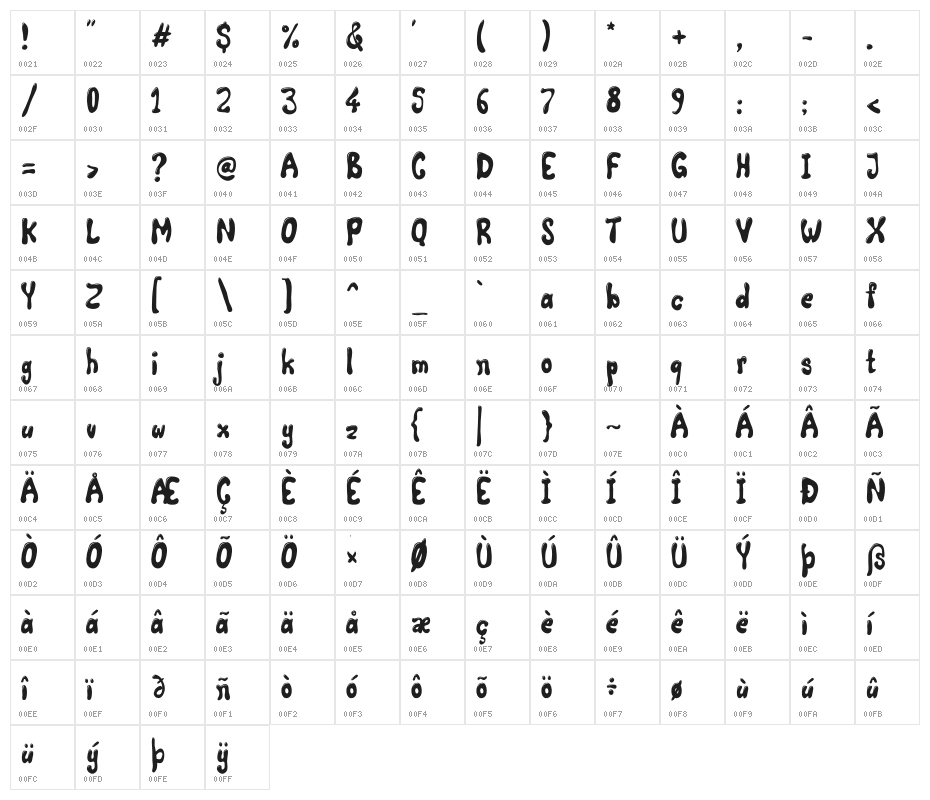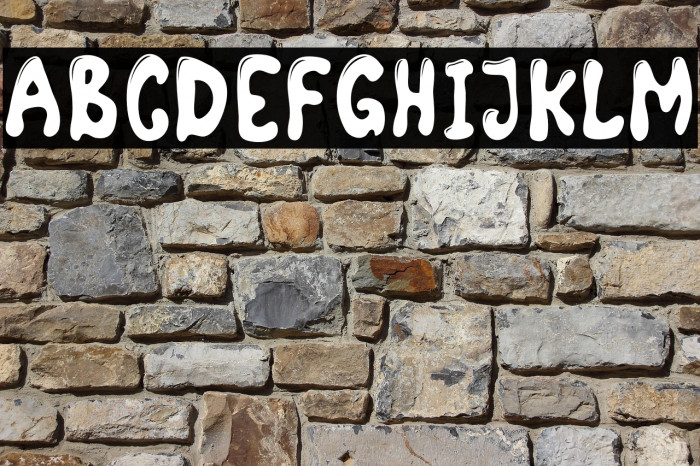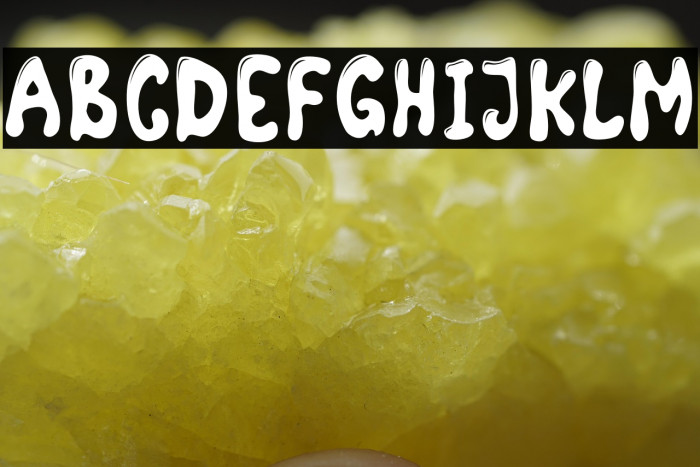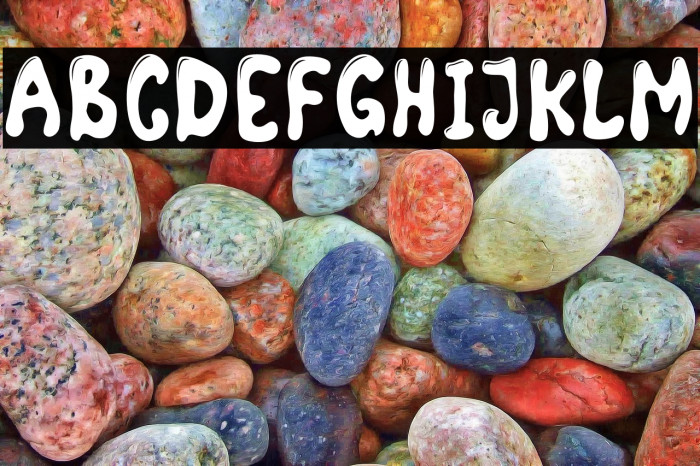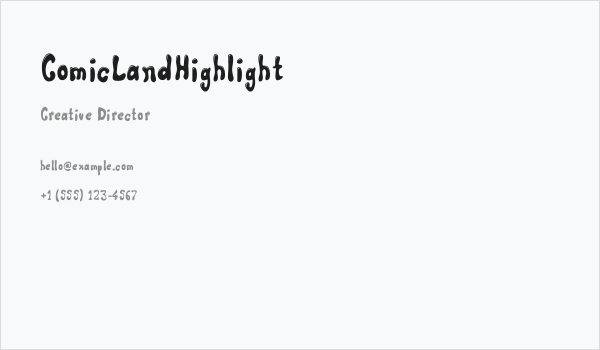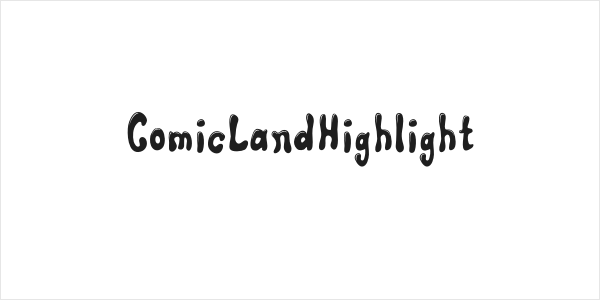
ComicLandHighlight Font
ComicLandHighlight Description
This playful and bold font features a bubbly, cartoonish style with thick, rounded strokes that give it a lively and energetic appearance. The characters have a hand-drawn feel, with slight variations in stroke width that add to its whimsical charm. The uppercase and lowercase letters maintain a consistent style, while the numerals and special characters complement the overall design. Its unique and eye-catching look makes it ideal for projects that require a fun and informal touch.
| Overall Style | Playful, Cartoonish |
| Proposed Projects | Ideal for comic books, children's books, playful branding, and posters. |